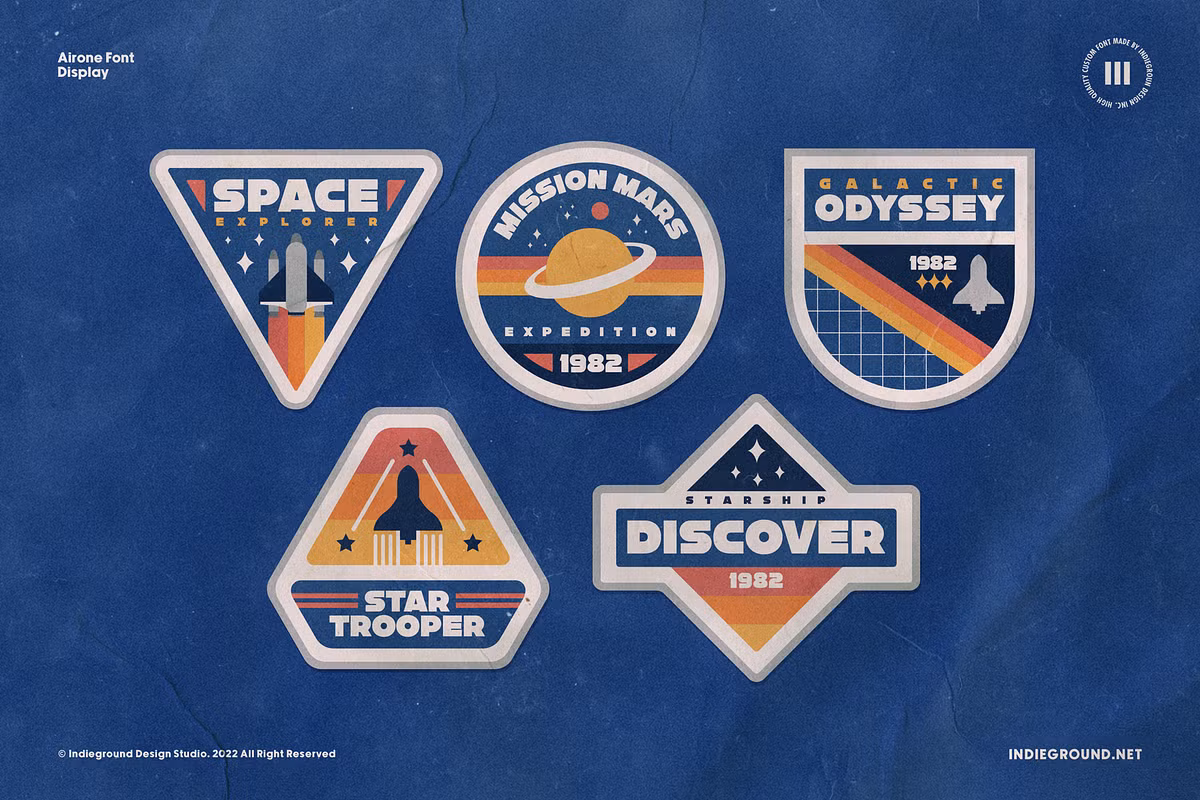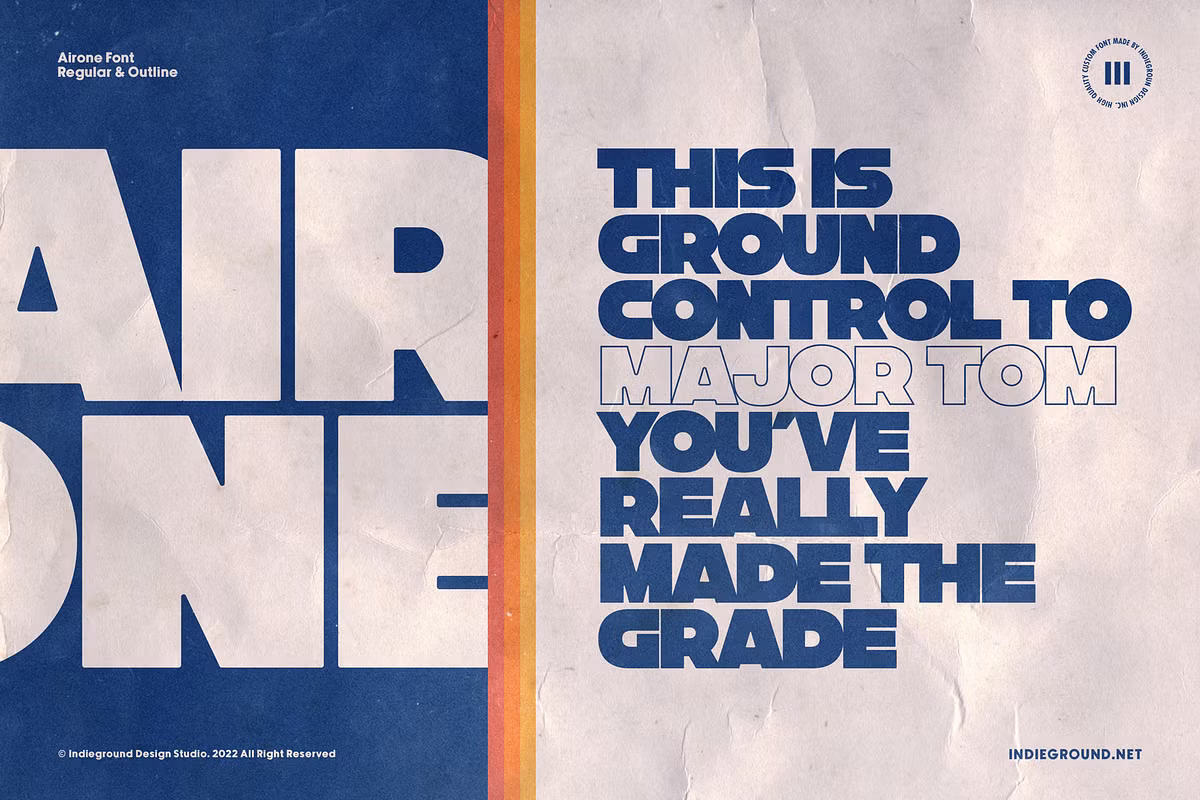
Airone Font: Extra-Bold Display Typeface for Impactful Design
The Airone Font, created by the skilled Indieground Team, is a really bold font that grabs your attention. It’s perfect for big titles and headlines because it’s so striking. This font works well for both old-school and modern designs, and it adds a lot of personality to your work. Whether you’re going for a retro look or something more contemporary, the Airone Font is a great choice because it’s bold and really makes a statement. It’s a great way to add some edge to your projects and make them stand out.
Design Style of Airone Font
The Airone Font has a really bold and confident look. It’s super thick, which makes it great for projects that need to make a big impression. The font has soft, rounded edges and a sturdy build, which gives it a unique feel. This mix of styles lets it blend old and new design elements, so it works well with lots of different looks. The extra-bold weight is especially good for making a statement, and the rounded edges help balance it out. Overall, the Airone Font is pretty versatile and can be used in many different ways. Its strong personality makes it perfect for projects that need a bold and eye-catching font.
With the Airone Font, you can expect a typeface that doesn’t shy away from making an impression. Its large and pronounced characters make it suitable for a range of applications, from posters and advertisements to branding and packaging. The design is not just about aesthetics; it also ensures readability at large sizes, making your text clear and engaging for your audience.
Character Sets and Variants
The Airone Font has a wide range of characters that can be used in many different ways. The basic version of the font includes all the letters, numbers, and punctuation marks you need to create your designs. This means you get uppercase and lowercase letters, numbers, and special characters, so you can express yourself clearly and easily.
With the Airone Font, you have the freedom to design whatever you want, without worrying about running out of characters. It’s a versatile font that can help you convey your message in a powerful and effective way. Whether you’re working on a simple project or a complex design, the Airone Font has everything you need to bring your ideas to life.
The Airone font comes with a special outlined version that’s really useful when you want to add some extra visual punch to your designs. This outlined version is great for layering and mixing with other design elements, which can really make your projects stand out. Plus, the font comes in a range of formats like TTF, OTF, WOFF, WOFF2, EOT, and SVG, so you can use it in all sorts of digital projects and applications. This flexibility makes it easy to get creative with the Airone font and use it to enhance your work in different ways. Whether you’re working on a website, a graphic design project, or something else entirely, the Airone font is a great choice because it’s so versatile and easy to use.
Use Cases for Airone Font
The Airone Font is really flexible, which means it can be used in many different situations. Let’s take a look at some examples of where this font works well:
- Posters and Flyers: The boldness of Airone makes it a perfect choice for event posters and promotional flyers. Its eye-catching design ensures that your message stands out in crowded spaces.
- Branding: If you are looking to establish a strong brand identity, the Airone Font can play a key role. Its distinctive style can be used in logos, packaging, and promotional materials to create a memorable visual experience.
- Social Media Graphics: In the era of digital marketing, a strong online presence is crucial. The Airone Font can enhance your social media graphics, making them more engaging and shareable.
- Website Headers: For web design, using Airone in headers can provide a bold and striking entry point to your content, guiding visitors’ attention immediately to key messages.
Pairing Suggestions for Airone Font
While the Airone Font is stunning on its own, it can also be effectively paired with other typefaces to create a well-balanced design. Here are some pairing suggestions:
- Sans-Serif Fonts: Pairing Airone with a clean sans-serif font, such as Montserrat or Open Sans, can provide a modern contrast. Use Airone for headlines and the sans-serif for body text to ensure readability.
- Serif Fonts: When you want to give your design a classic feel, think about pairing Airone with a serif font, like Playfair Display. This combo is great for editorial designs and it adds a touch of sophistication, making your work look really polished.
- Script Fonts: For a more playful and artistic feel, combine Airone with a script font like Pacifico or Great Vibes. This pairing can add a unique flair to invitations or creative branding.
You can use it to make headlines that grab people’s attention, social media graphics that engage your audience, or branding that people will remember. The Airone Font is all about being bold and making a statement, so if you want to add some excitement to your designs, this is definitely a font worth checking out. With its unique style and versatility, it’s perfect for anyone who wants to create something that’s really going to make an impact.